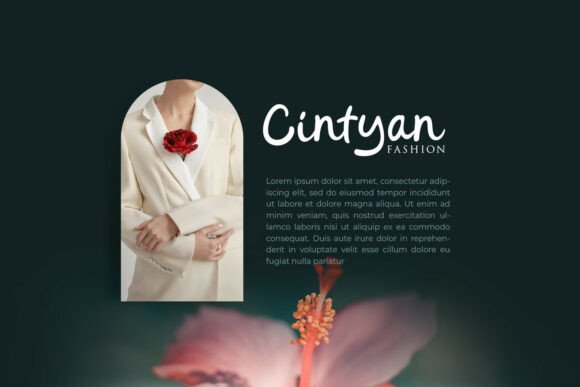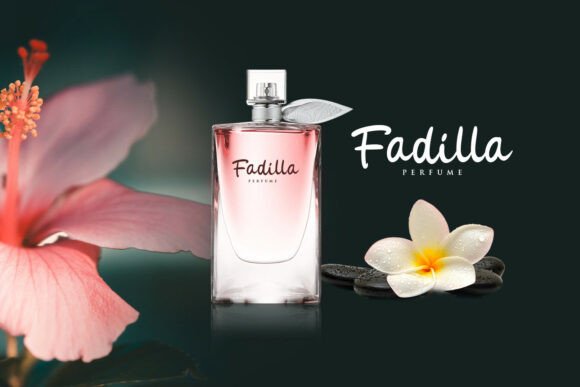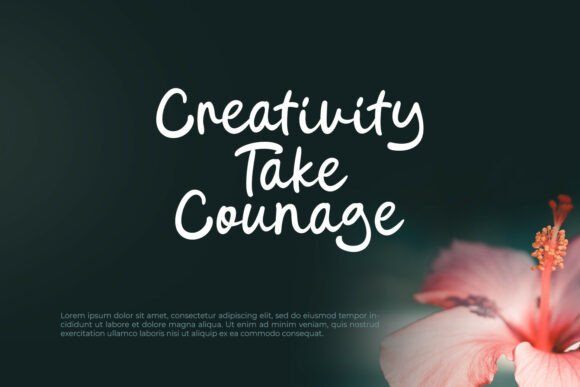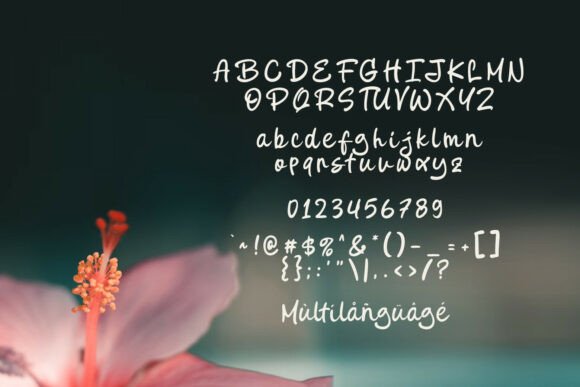
Introduction to Bevagna Font
Have you ever stared at a blank canvas, waiting for inspiration to strike? That’s where the magic happens – in the moment when creativity meets opportunity. For designers, finding the perfect font can be the key to unlocking a stunning design. That’s why we’re excited to introduce you to the Bevagna Font, a fresh and unique script that will elevate your design work to new heights.
Whether you’re working on a poster, logo, magazine cover, or book banner, the Bevagna Font is the perfect design resource to add a touch of elegance and sophistication. With its beautiful, high-quality design, this font is sure to make your project stand out from the crowd. Plus, with a transparent background, you can easily adapt it to fit your creative vision.
As a valuable addition to your design arsenal, the Bevagna Font is a must-have for any creative project. And the best part? It’s available for free download, so you can start creating beautiful designs right away. Get ready to take your design work to the next level with the Bevagna Font!
Key Features of Bevagna Font
- High-quality design resource ideal for creative projects, offering a unique and elegant style.
- Designed with a resolution of 300 DPI, making it suitable for print and digital applications.
- Characterized by its intricate details and ornate design, making it perfect for projects that require a touch of sophistication.
Honest Review: Bevagna Font
As a designer, I’m always on the lookout for high-quality design resources to elevate my creative projects. The Bevagna Font is one such resource that caught my attention.
Here are some things that work well about this font: ✨
- Unique and elegant design style
- High-quality rendering, even at small sizes
One limitation I’ve noticed is the lack of flexibility in terms of font weights. While the font looks great at its default weight, it can be challenging to create variations for different design elements. ⚠️
Overall, I’m impressed with the Bevagna Font’s potential to add a touch of sophistication to my designs. However, I’d love to see more options for customization. That being said, it’s still a valuable addition to my design library, especially considering its transparent background and free download.
Bevagna Font is ideal for various design projects, including:
- Posters and signs
- Presentation slides and documents
By downloading the Bevagna Font, users can unlock a world of creative possibilities and take their design projects to the next level. Its unique characteristics and high quality make it an excellent addition to any design toolkit, and its free download option makes it accessible to designers of all levels. Whether you’re working on a personal or professional project, the Bevagna Font is sure to inspire and delight, so don’t hesitate to try it out today!